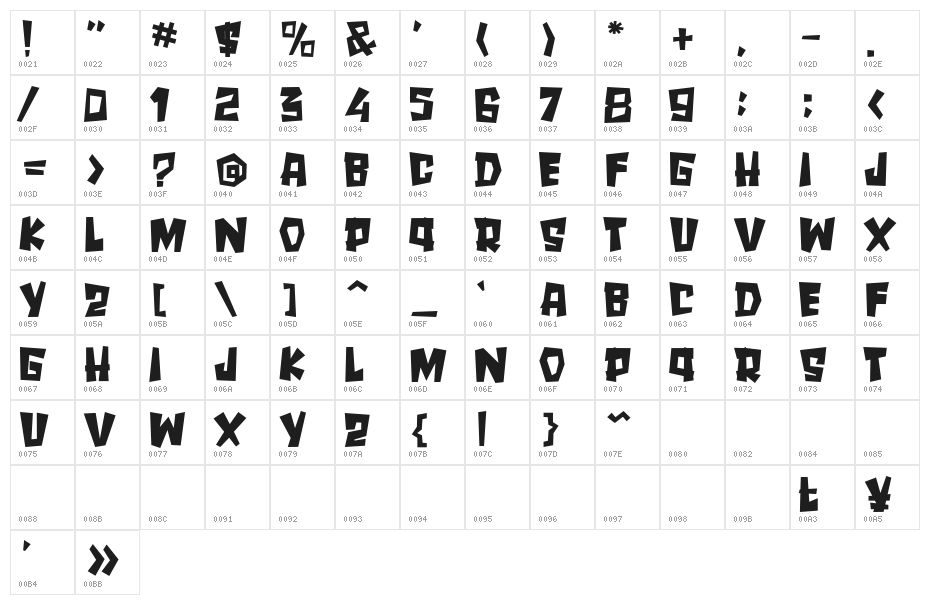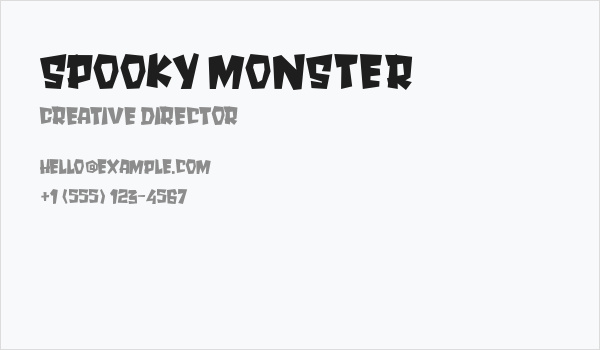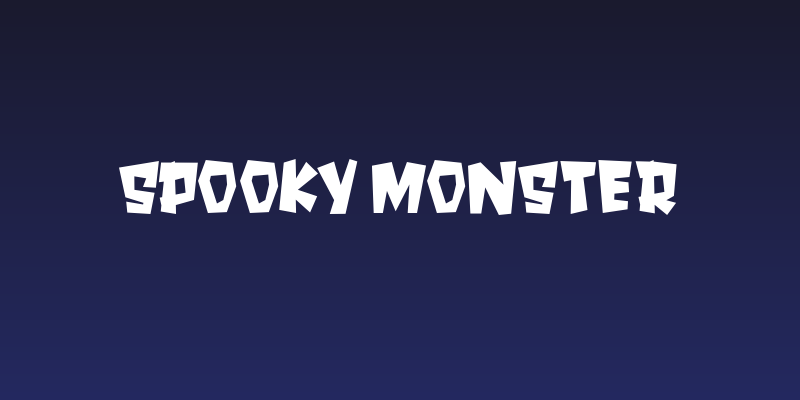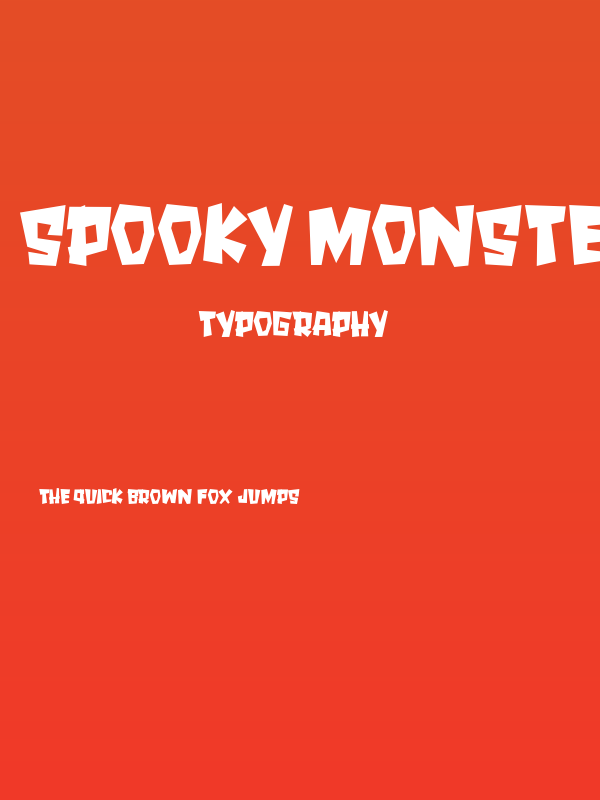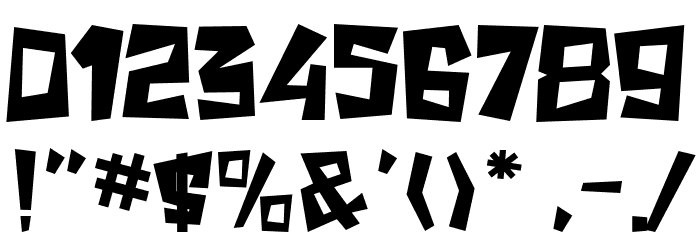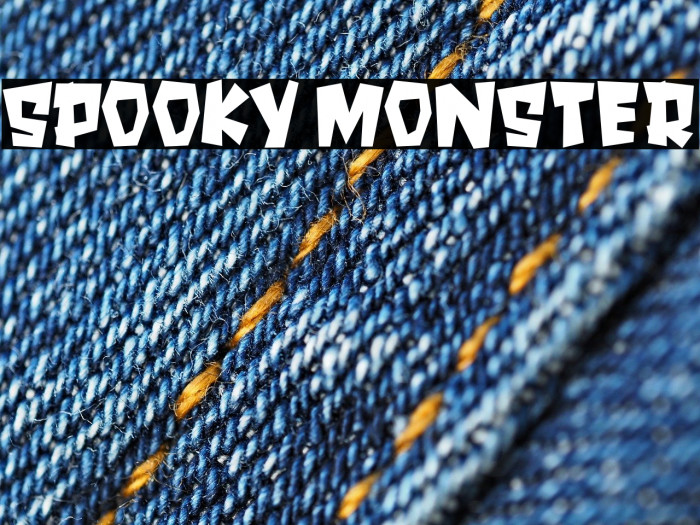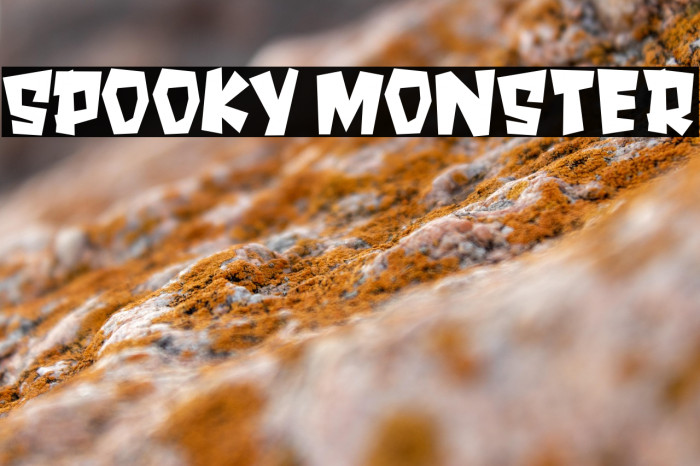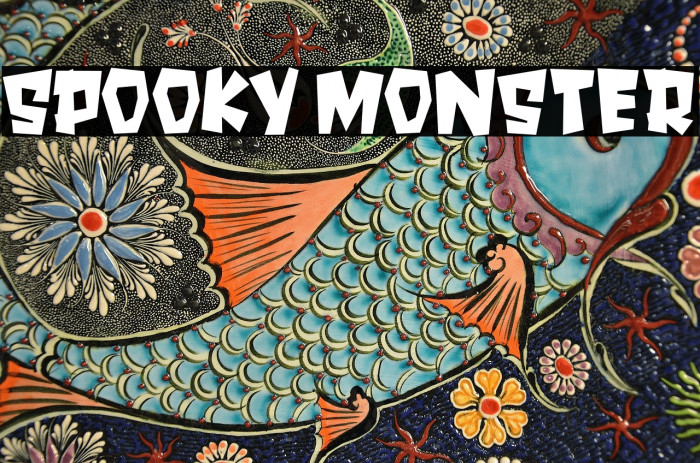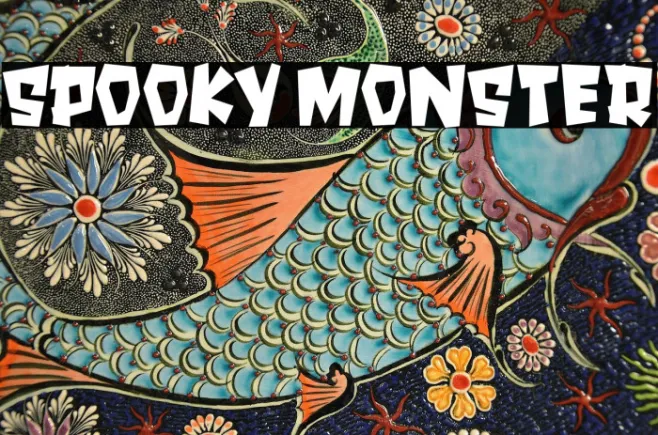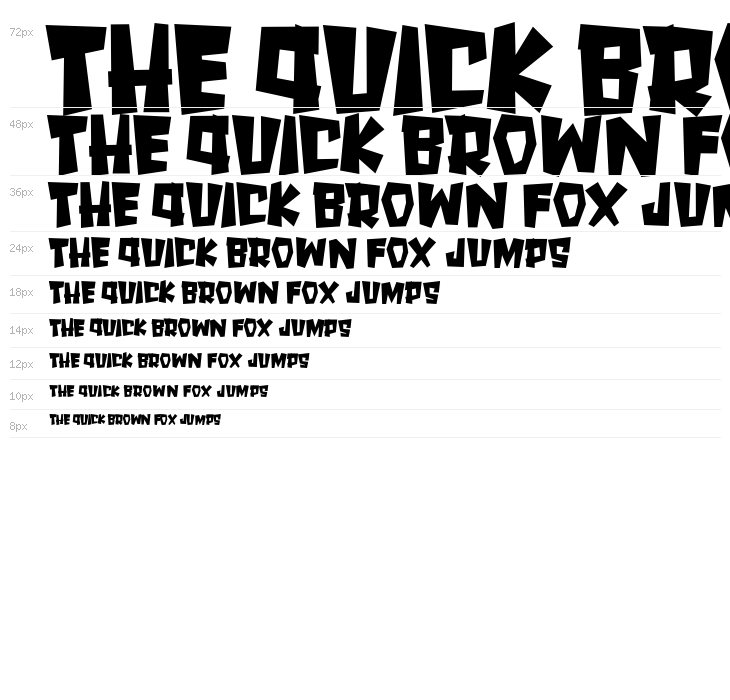
SPOOKY MONSTER Font
SPOOKY MONSTER Description
This font exudes a playful and eerie vibe, perfect for Halloween or spooky-themed projects. The letters are bold and jagged, with irregular edges that give them a monster-like appearance. Each character is uniquely shaped, adding to the chaotic and fun aesthetic. The uppercase and lowercase letters maintain a consistent style, while the numbers and special characters follow the same quirky design. This font is ideal for creating eye-catching titles and graphics that need a touch of the macabre.
| Proposed Projects | Ideal for Halloween posters, haunted house flyers, spooky-themed party invitations, and horror movie titles. |